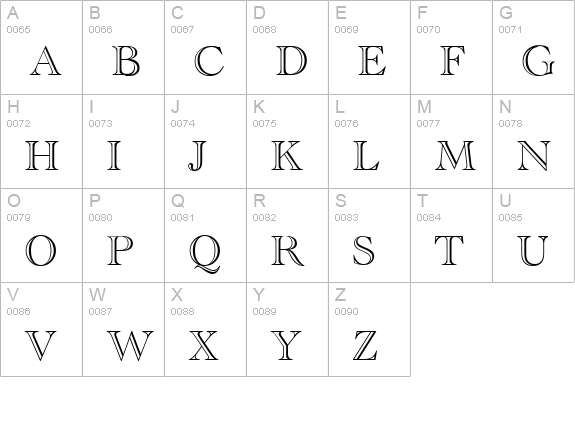
CathedralOpen-Regular Font Details
CathedralOpen-Regular is the standard, neutral variant in the CathedralOpen typeface family \xE2\x80\x94 well suited to general body text, paragraphs, and standard typographic work.
CathedralOpen-Regular is a stunning and elegant font that exudes sophistication and timeless beauty. Its classic yet modern design makes it perfect for a wide range of projects, from wedding invitations to branding materials. The font features clean lines and graceful curves that add a touch of sophistication to any design. What sets CathedralOpen-Regular apart is that it is not only visually appealing, but it is also free for personal and commercial use. This means that you can use this exquisite font in your projects without any restrictions. You can download CathedralOpen-Regular for free at FontsMarket.com, where you can explore a wide selection of high-quality fonts for all your design needs. Don't miss out on this beautiful font that will elevate your designs to new heights.